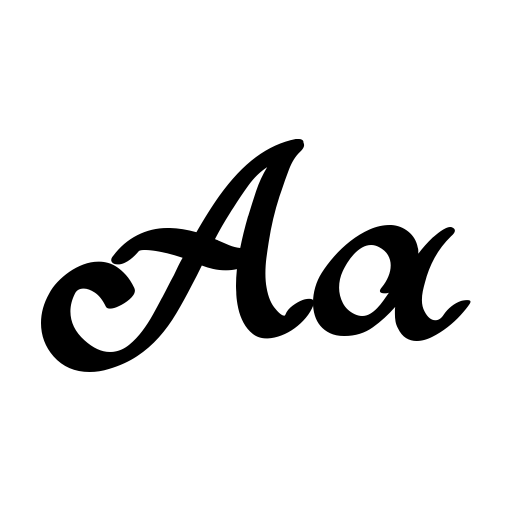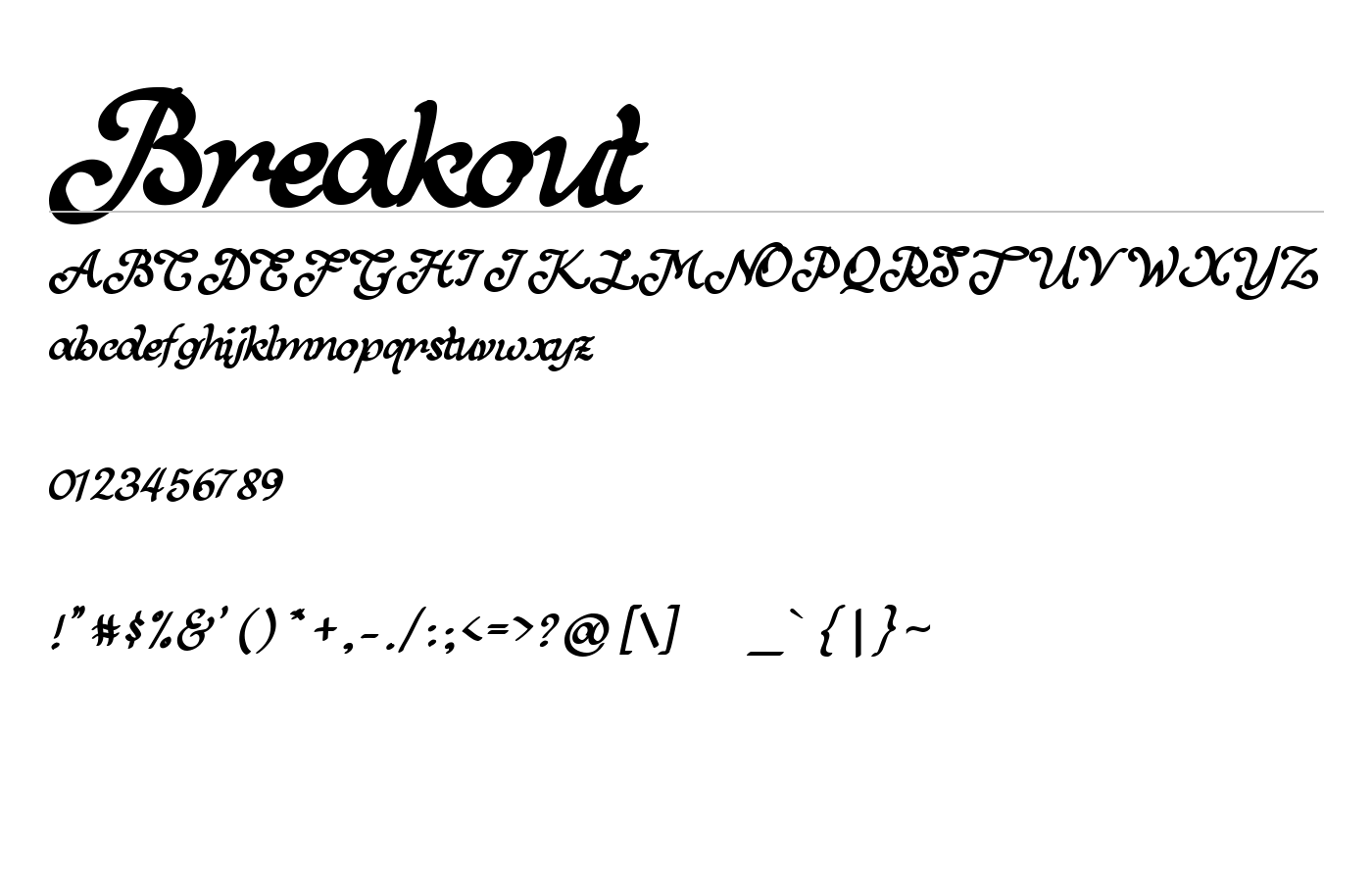
Breakout Font is a bold and elegant script typeface with fluid, connected letterforms that convey a sense of sophistication and vintage charm. Its high contrast strokes and smooth curves make it ideal for logos, invitations, and branding where a stylish, classic personality is desired. This font works best in display settings, adding flair and a distinctive touch to headlines and decorative text.
Breakout Font
About Breakout Font
| Font family | Breakout Font |